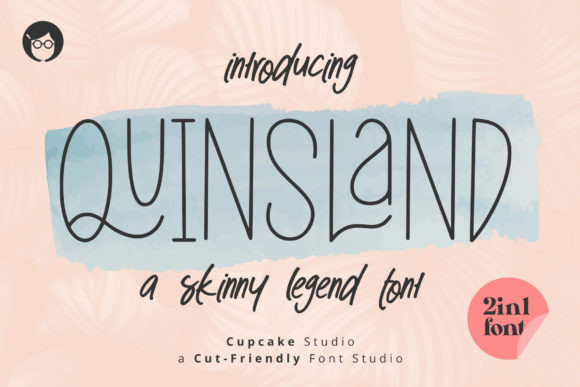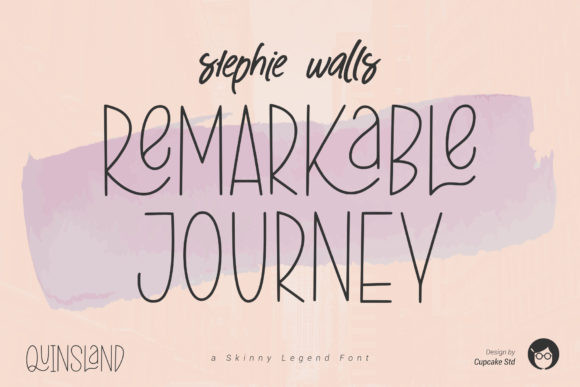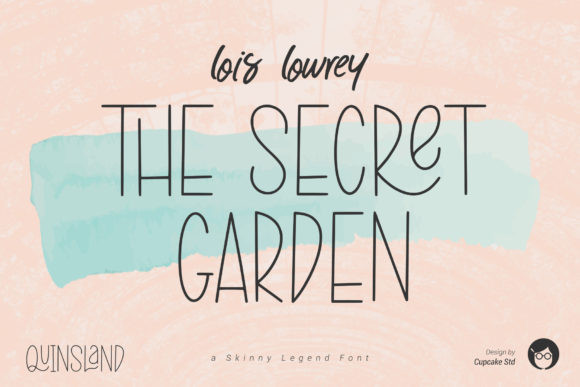
AL Quinsland 2in1 Font
Quinsland is a cute display font, carefully handcrafted to become a true favorite. This font will look outstanding in any context, whether it’s being used on busy backgrounds or as a standalone headline!